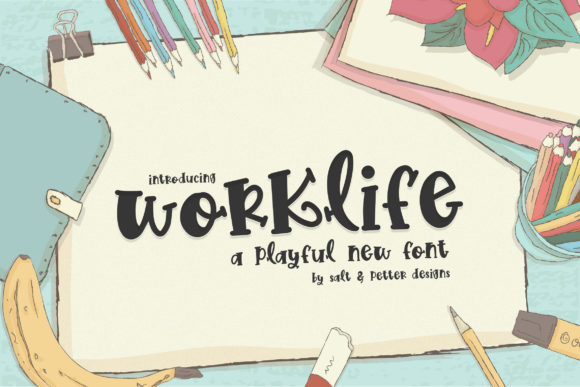
Unleash your creativity with Worklife Font - the ultimate display font for those seeking a playful and chic touch in their designs. Created by Salt and Pepper Fonts, this font exudes a charming personality that will make your creations shine.
With its playful curves and elegant strokes, Worklife Font is the perfect choice for adding a touch of whimsy and sophistication to your designs. Whether you're creating cartoon-related designs, children's games, or any project that calls for a lovable and eye-catching font, Worklife Font will deliver stunning results.
Imagine your designs coming to life with the playful and whimsical characters of Worklife Font. Its unique and artistic style will make your creations stand out from the crowd, creating a lasting impression on your audience.
Key features of Worklife Font:
• Playful and Chic Design: Experience the fusion of playful curves and elegant strokes that give Worklife Font its captivating charm.
• Ultimate Display Font: Designed specifically for display purposes, this font is perfect for headlines, titles, logos, posters, and other large-scale applications.
• Easy to Read: The font's clear and legible design ensures readability and accessibility, making it perfect for a wide range of projects.
• Versatile Applications: Whether you're working on cartoon-related designs, children's games, or any project that requires a lovable touch, Worklife Font is up to the task.